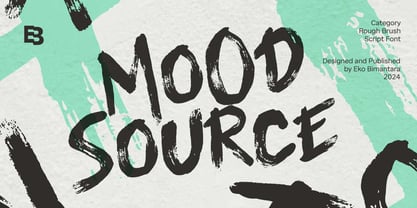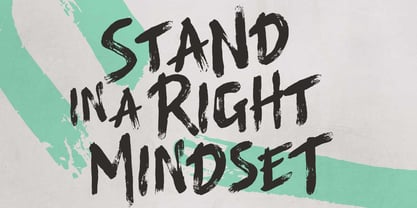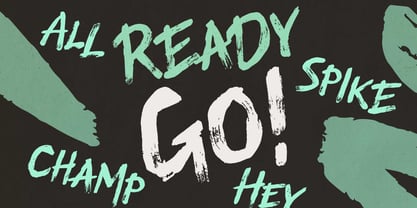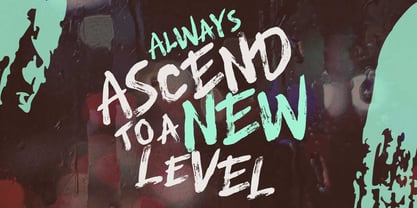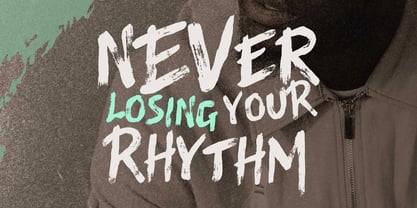
Mood Source
by Eko Bimantara
The Mood Source Font Family was designed by Eko Bimantara and published by Eko Bimantara. Mood Source contains 1 styles. More about this family
Mood Source is a rough brush all-caps script font that exudes an expressive and raw energy. Its gritty texture and bold style make it perfect for branding projects with a grunge or rugged theme, as well as impactful titles and product designs. Ideal for large-size displays, headers, and titles, it seamlessly fits into various design applications such as websites, brand identities, product packaging, and broad graphic design projects that call for a bold, raw, and edgy aesthetic.
Eko Bimantara is a type designer from Indonesia. Always has an intention to creating fonts that not only look great but also perform across a wide range of mediums and also across wide range of theme. The goal is to give designers the tools to make their projects that speaks a lot with various expression. Eko Bimantara’s fonts are featured in everything from corporate identities to street art posters, and have numerous ideas and concept ready to expand for fresh fonts for years further.